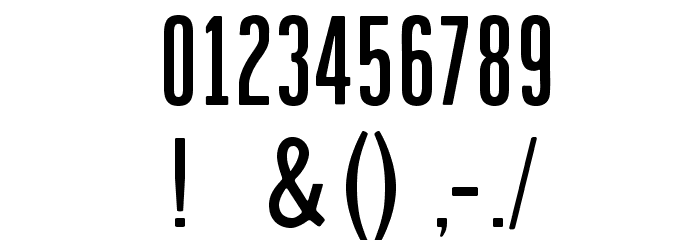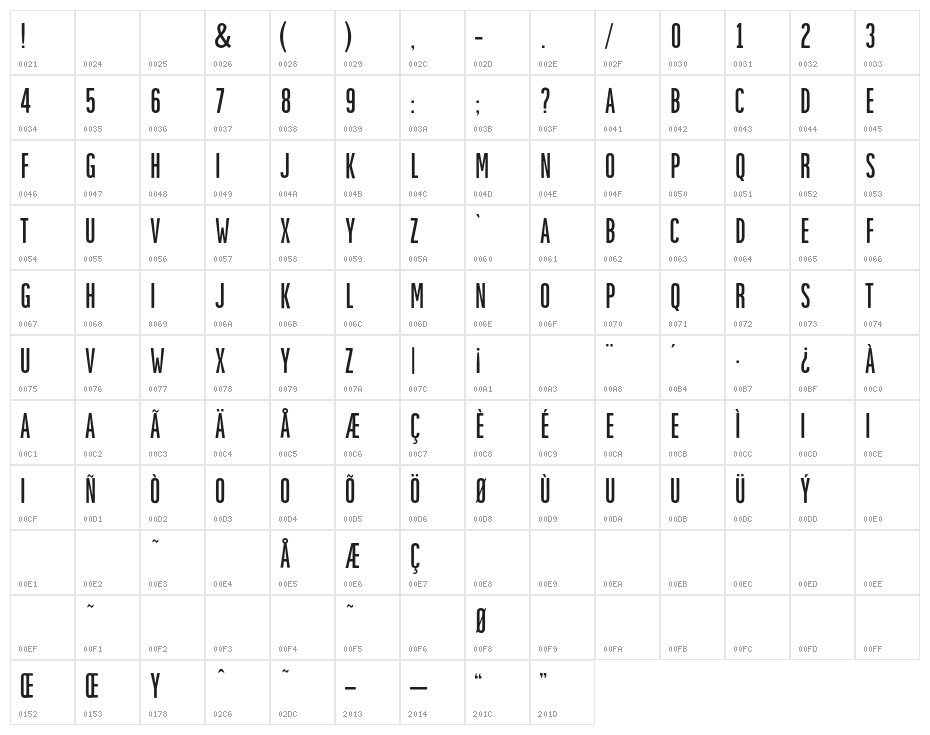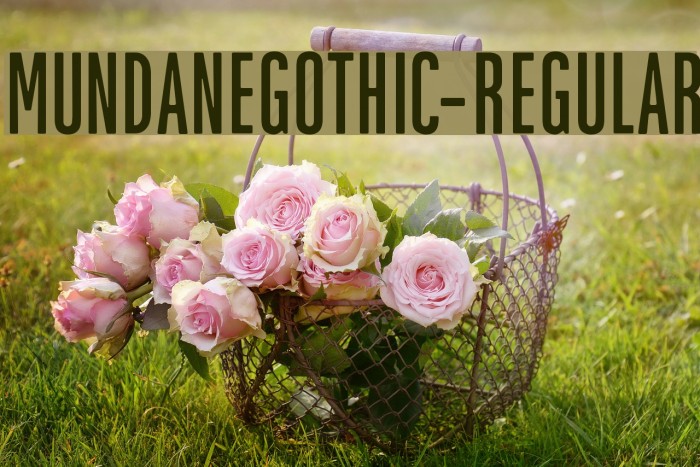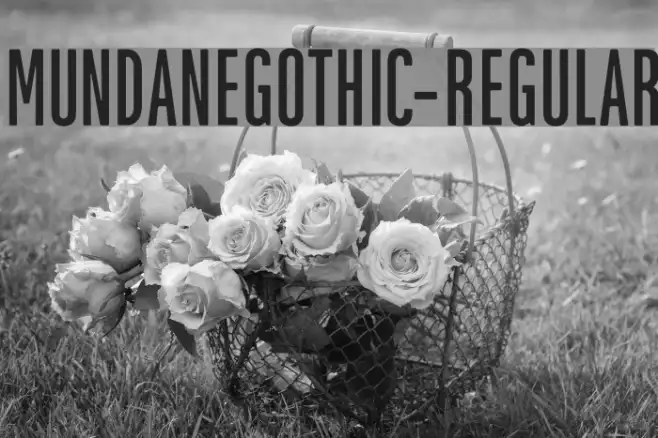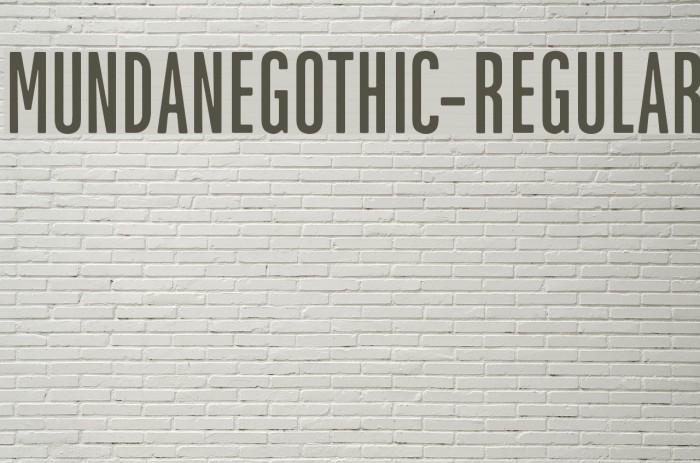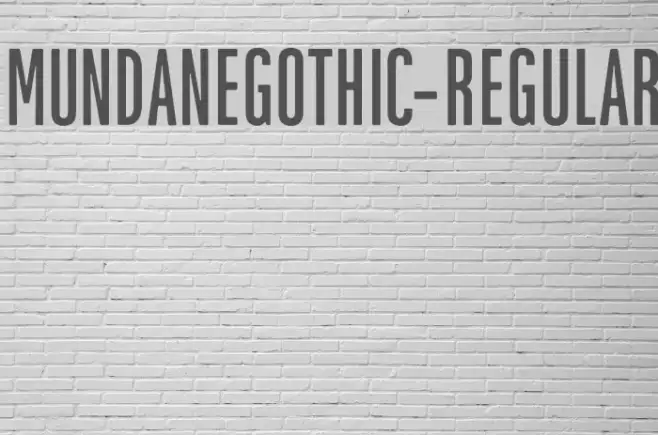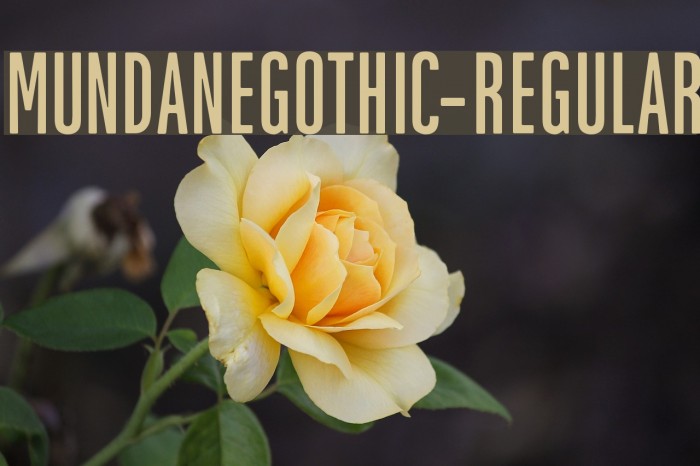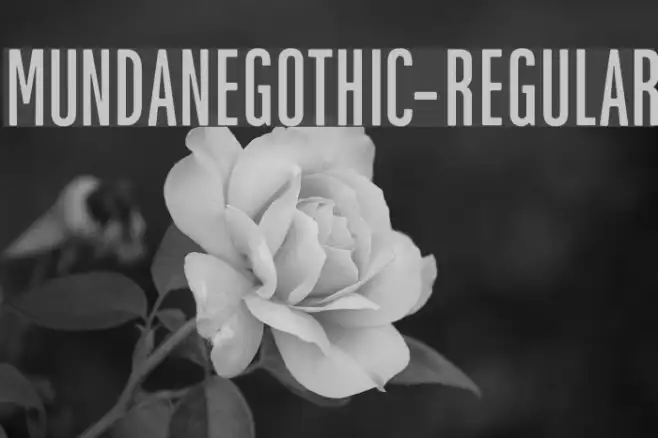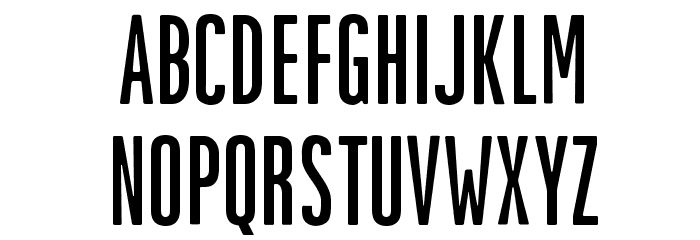
MundaneGothic-Regular Font
MundaneGothic-Regular Description
This font features a clean and modern sans-serif style with a tall and narrow appearance. The characters are uniformly structured, providing a sleek and professional look. The uppercase letters are bold and prominent, while the lowercase letters maintain a consistent height, enhancing readability. The numerals are straightforward and align well with the overall design. Special characters are distinct and well-integrated, ensuring versatility in various applications. The font's simplicity and elegance make it suitable for both digital and print media, offering a contemporary aesthetic that is both functional and visually appealing.